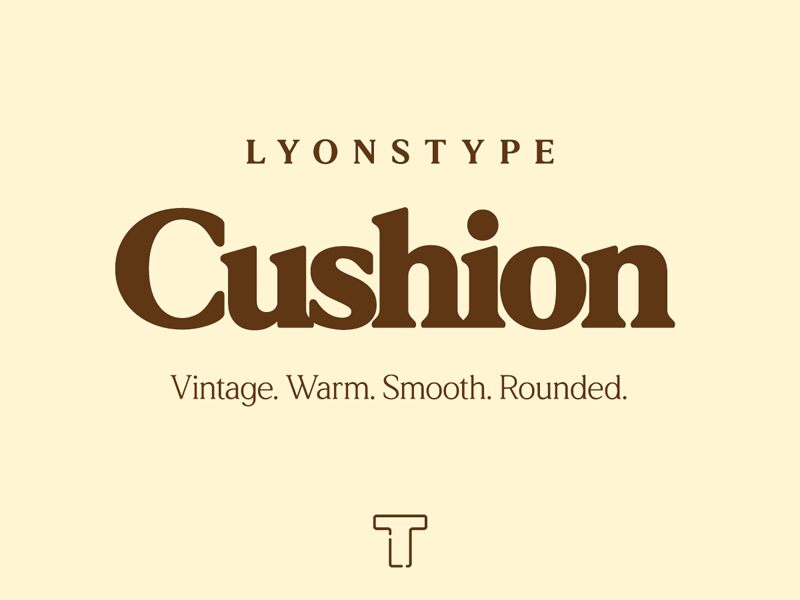
LT Cushion Black is a vintage serif font with a rounded touch, designed by LyonsType. Its ultra-bold weight brings a strong and impactful presence to any project. This font is perfect for retro-inspired designs, lending an air of nostalgia and authenticity.
It can be used for various projects such as branding, packaging, posters, and signage. The LT Cushion font family also offers three additional weights, allowing for versatility in creating eye-catching headlines or elegant display text.
Elevate your design with the bold and distinctive charm of LT Cushion Black.
LT Cushion, a revival of the Salisbury Bold font. Three additional weights.